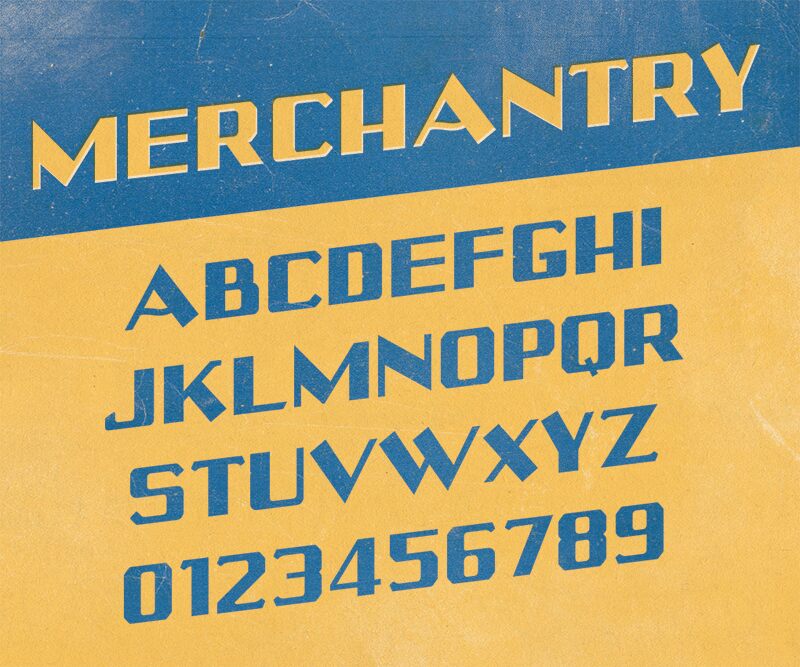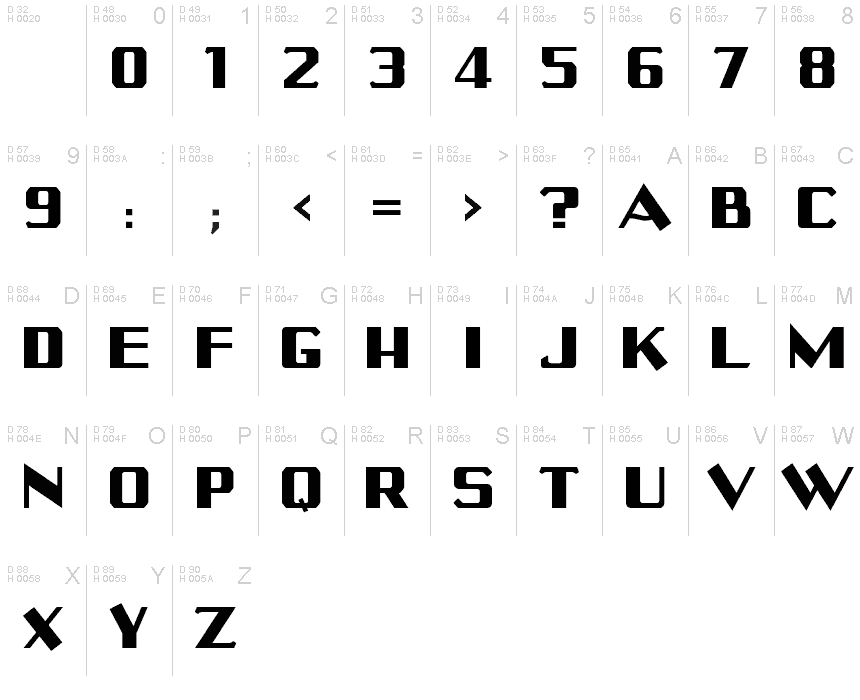
Merchantry
Merchantry, a bold and expressive display font crafted by designer Brian Haines, exudes a captivating retro aesthetic. With its expanded letterforms and striking visual presence, this font commands attention and creates an impactful impression.
The font's distinct character is defined by its robust, angular shapes and carefully balanced weight distribution. The expansive letterforms and generous spacing lend an air of confidence and authority, making Merchantry an ideal choice for attention-grabbing headlines, logos, and branding applications.
Merchantry's retro-inspired style seamlessly blends vintage charm with modern sensibilities, making it a versatile option for a wide range of design projects. From editorial layouts and packaging design to signage and advertising, this font has the potential to elevate the visual impact and memorable appeal of any design.